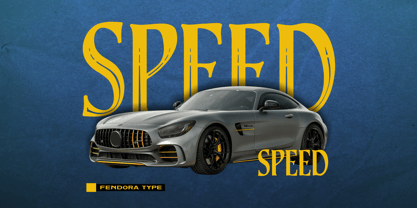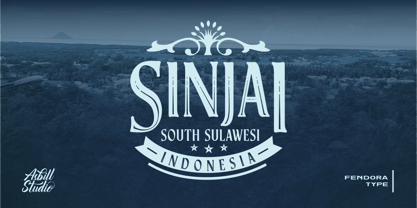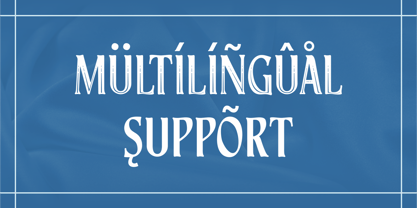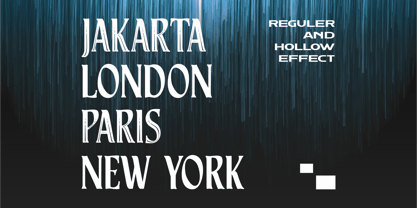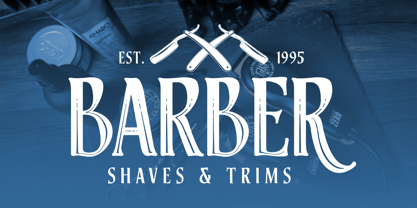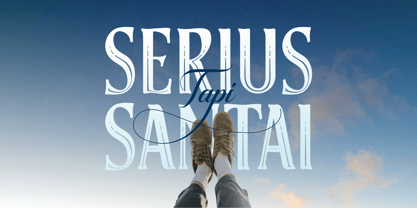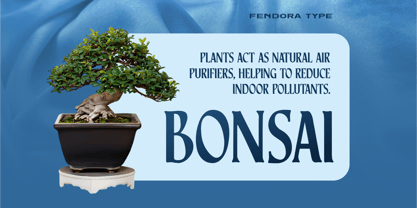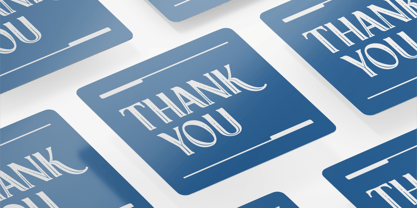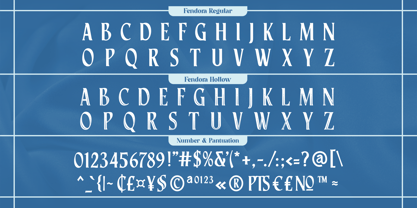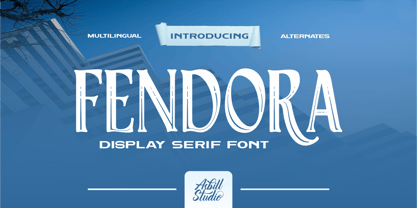
Fendora
von Asbill Studio
Die Schriftfamilie Fendora wurde von Ricky Ali entworfen und von Asbill Studio veröffentlicht. Fendora enthält 3 Stile und Familienpaketoptionen. Mehr über diese Familie
Introducing Fendora, an exquisitely elegant serif display font crafted to elevate your visual designs. With its tall proportions, refined contrast, and graceful serif details, this typeface captures a sense of luxury and sophistication that instantly commands attention.
Perfectly suited for logos, headlines, branding, packaging, editorial layouts, and other display-focused design needs, Fendora delivers a striking presence while maintaining timeless beauty. Each character is designed with precision to create a harmonious balance between modern elegance and classic refinement.
Whether you’re designing for high-end fashion, boutique brands, premium products, or artistic editorial work, Fendora brings a distinctive, polished look that ensures every project feels premium and unforgettable.
Designer: Ricky Ali
Foundry: Asbill Studio